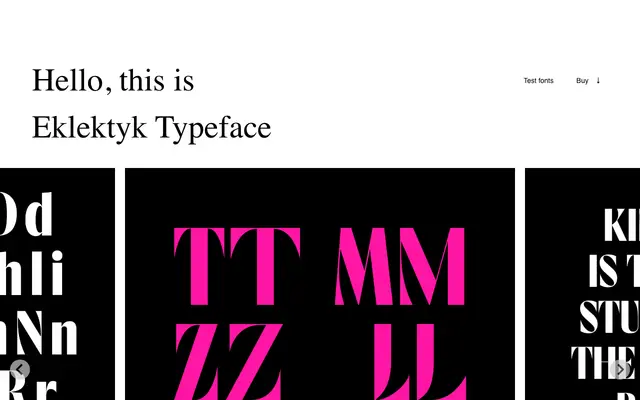
Eklektyk
Laïc · Maciej Połczyński · 2021
A single-style high-contrast headline face by Maciej Połczyński, drawing on eclectic retro influences for Polish and Latin display work.
Designed by Maciej Połczyński and released in 2021, Eklektyk is a headline typeface built around strong stroke contrast and a deliberately retro, eclectic character. Its name is borrowed from the Polish word for eclectic, reflecting the mix of diverse stylistic sources behind the design. The character set covers full Polish Latin with oldstyle figures and two OpenType features, keeping the offering lean and focused on headline use.
A single-style headline typeface with strong stroke contrast and an eclectic retro character; designed explicitly for display use rather than continuous text.